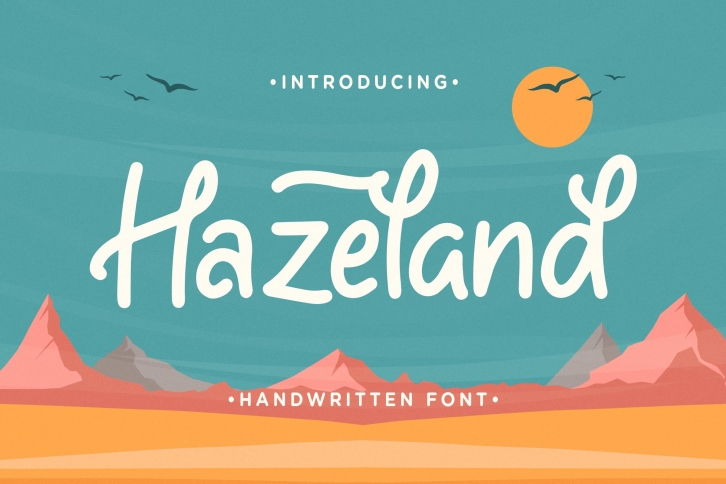
Hazeland is a beautiful font that was designed by Typefactory. It's a great choice for designers and creatives who need such a font. It was released on September 3, 2021 and the file size is 12.76 MB. Hazeland may give a more youthful, expressive and casual look to your project. It is a very beautiful, refined, elegant, and high-quality font.